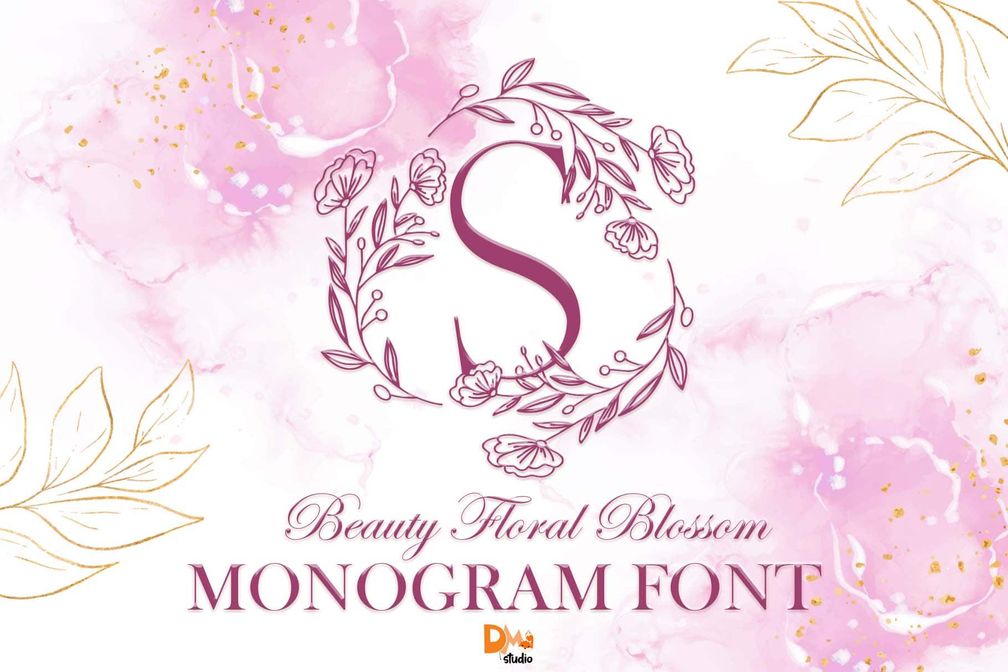
Beauty Floral Blossom Monogram
Beauty Floral Blossom Monogram – Elegant & Romantic Botanical Monogram Font
Beauty Floral Blossom Monogram is a delicate and artistic monogram font inspired by blooming florals and graceful botanical elements. Each letter is intricately designed with floral accents, making it the perfect choice for wedding invitations, branding, personalized stationery, packaging, and other creative projects that require a soft, feminine, and elegant touch.
• Intricate Floral Blossom Design – Beautifully crafted letters with botanical flourishes to enhance visual appeal.
• Perfect for Romantic & Elegant Projects – Ideal for weddings, luxury branding, handmade products, and event stationery.
• Timeless & Artistic Aesthetic – Combines natural floral beauty with graceful letterforms.
• Complete Character Set – Includes uppercase, lowercase, numbers, punctuation, and multilingual support.